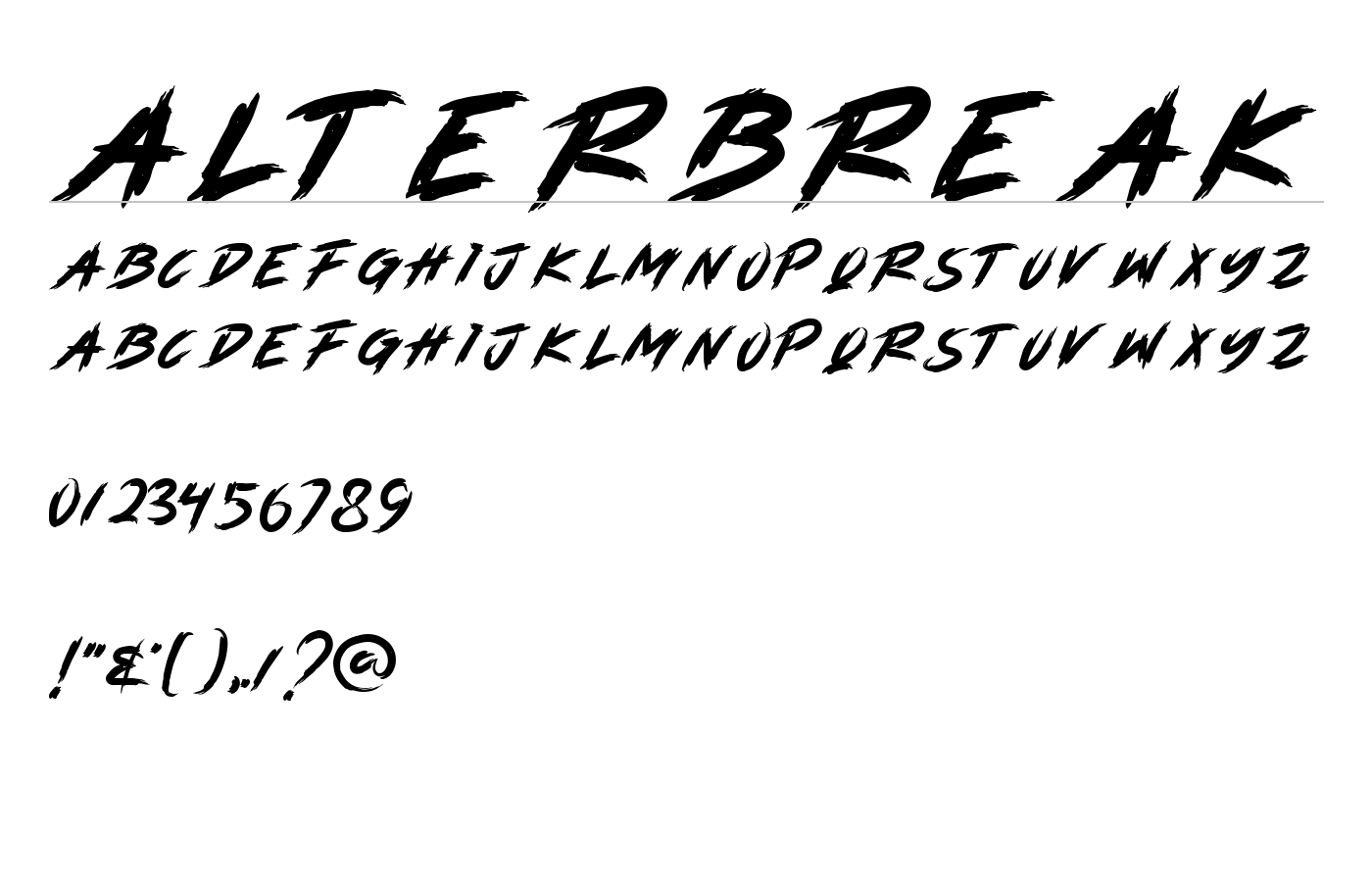
ALTERBREAK is an energetic and bold brush script font with a dynamic, hand-painted feel. Its irregular, textured strokes create a sense of movement and intensity, making it ideal for designs that want to convey creativity, edginess, and a youthful spirit. This font works perfectly for headlines, posters, and branding where a striking and expressive look is needed.
ALTERBREAK Font
About ALTERBREAK Font
| Font family | ALTERBREAK Font |
| Designer | AMINMARIO 2020 |